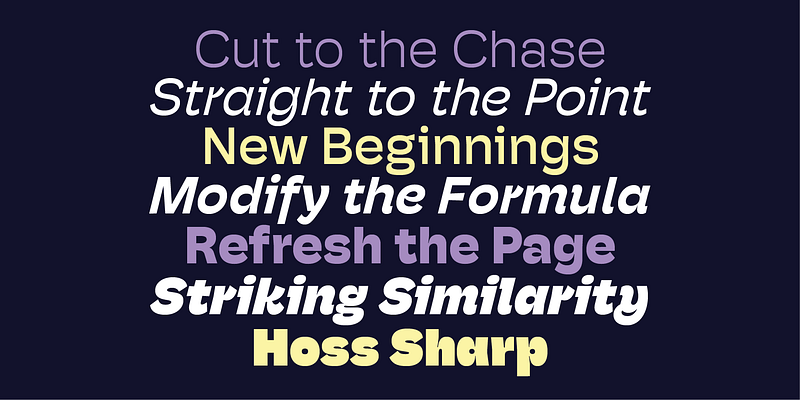
Hoss Sharp Font Free Download is a striking and modern display typeface characterized by its sharp angles and bold, geometric design. The font is perfect for projects that need to convey a strong, contemporary vibe, making it ideal for headlines, branding, logos, posters, and tech-related content.
Hoss Sharp Font Free Download offers a unique, edgy aesthetic that stands out in both digital and print formats. Its angular, clean lines make it an excellent choice for projects with a high-tech, futuristic, or minimalist design ethos.
The font pairs well with other modern typefaces and can be used to create high-impact visual compositions. Whether you're working on a digital product launch, a creative agency's branding, or a cutting-edge marketing campaign, Hoss Sharp makes a bold statement.